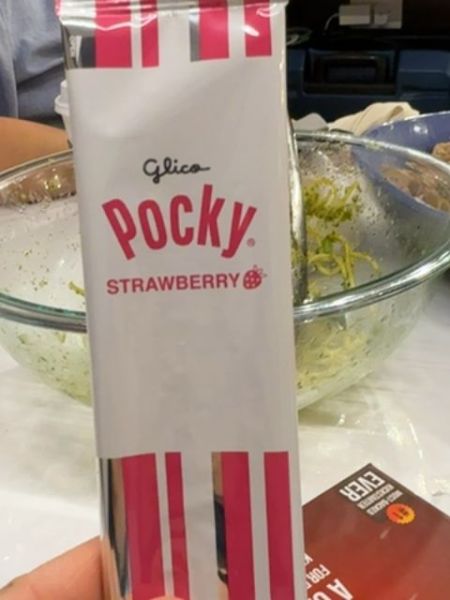
Glico Pocky Strawberry
Pocky is a popular Japanese snack consisting of biscuit sticks coated with strawberry-flavored confectionery.
1966
The typography features a playful, bold sans-serif font for the word 'Pocky', which captures attention with its clean, thick strokes. The use of a script font for 'Glico' adds a personal touch, while the word 'STRAWBERRY' is presented in a compact sans-serif typeface, balancing modernity with a sense of fun.
The packaging features a sleek and minimalist design with vibrant pink vertical stripes on a silver background, highlighting a sense of modern aesthetics. The front of the package prominently displays the product name, creating an eye-catching appeal.
- Pocky is known for its unique biscuit stick shape.
- It was first introduced in 1966.
- The strawberry flavor is one of the many varieties available.